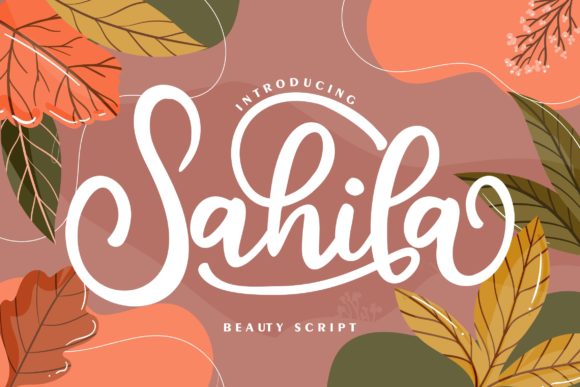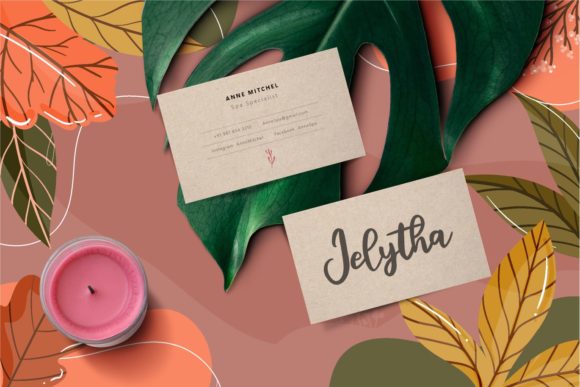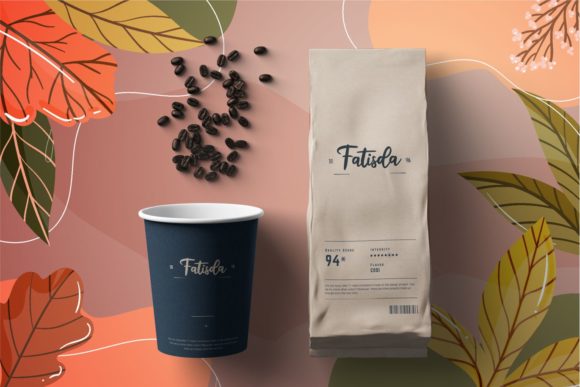
About Sahila Font
Sahila is a beautiful and cursive handwritten font. It looks stunning on wedding invitations, thank you cards, quotes, greeting cards, logos, business cards and every other design which needs a handwritten touch. It features a varying baseline, smooth lines, gorgeous glyphs and stunning alternates.